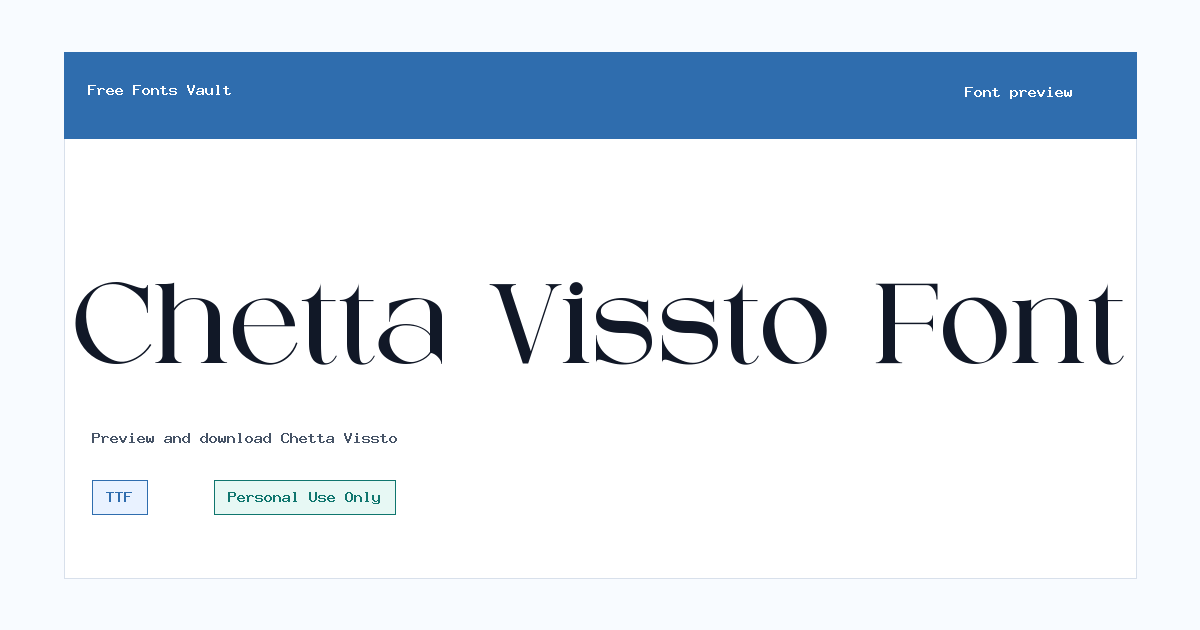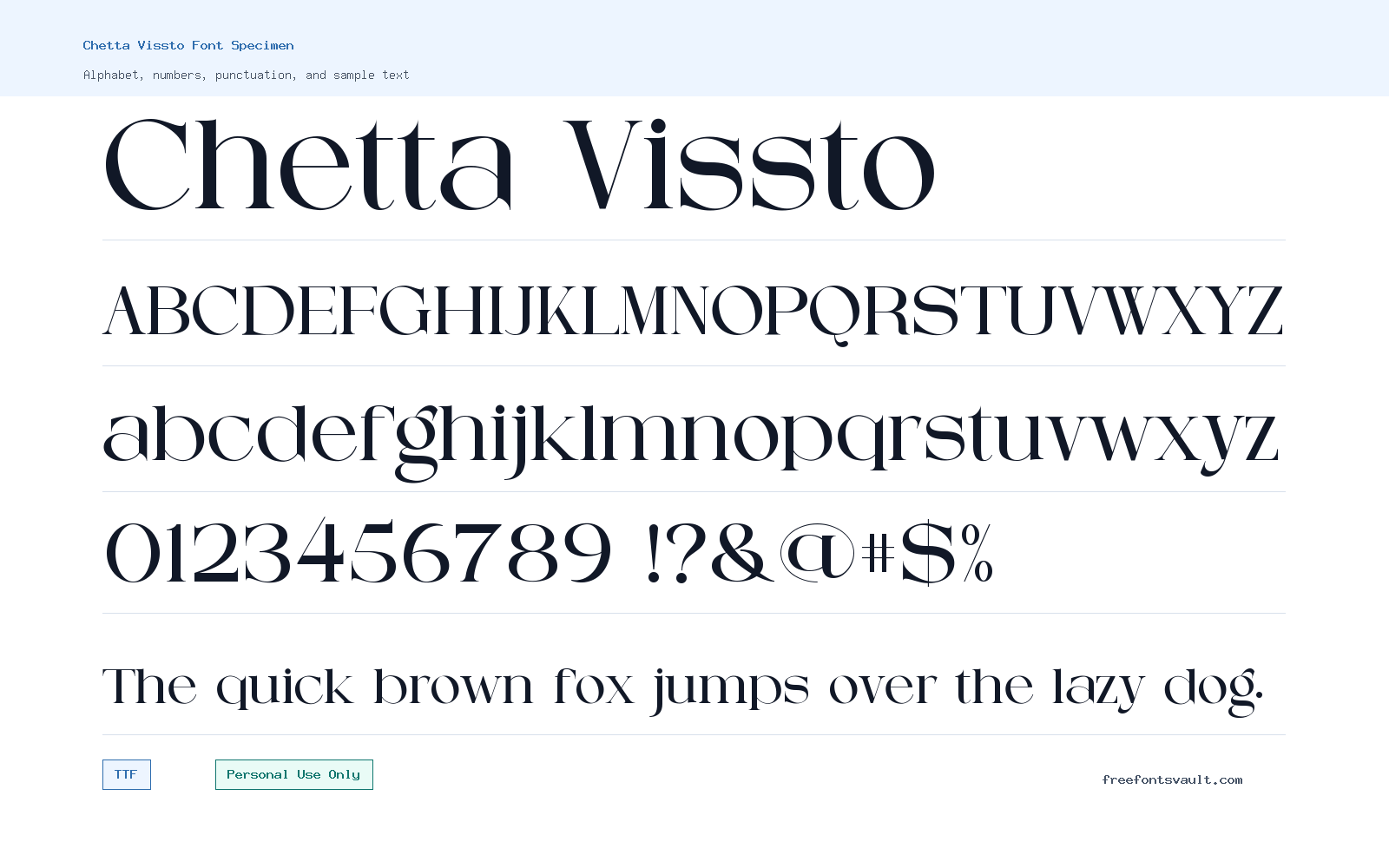
Chetta Vissto
Chetta Vissto font.
Chetta Vissto is a serif font with a decorative, display-friendly feel. It is a good choice when you want text that looks more expressive than a plain book serif, especially for short headings, names, and visual branding drafts.
About Chetta Vissto
Chetta Vissto works best as a font for attention-grabbing text rather than long paragraphs. Its serif structure gives it a classic base, while the display character makes it more suitable for titles, posters, social graphics, invitations, packaging mockups, and logo-style lettering tests. Use the preview tool to check how your exact words look, because decorative serif fonts can change a lot depending on the letters used. Names with curves, repeated capitals, or tight letter combinations may need extra spacing to look balanced.
- Serif display style suited to short, prominent text
- Useful for previewing headings, names, and decorative title treatments
- Posters, invitations, and social media graphics
- Logo drafts, brand moodboards, and packaging mockups
- Short headlines, names, and title text
- Personal creative projects that need a decorative serif look
Use Chetta Vissto for short text where style matters more than reading speed. Preview your wording in uppercase, lowercase, and title case, then adjust spacing if letters feel too tight. For longer copy, pair it with a simpler font and keep Chetta Vissto for the main visual accent.
What is Chetta Vissto best used for?
It is best for short display text such as headings, invitations, posters, logo drafts, and social graphics rather than long reading text.
How should I pair Chetta Vissto with other fonts?
Pair it with a clean sans serif or a simple text serif. Let Chetta Vissto handle the headline or name, and use the companion font for details and longer text.